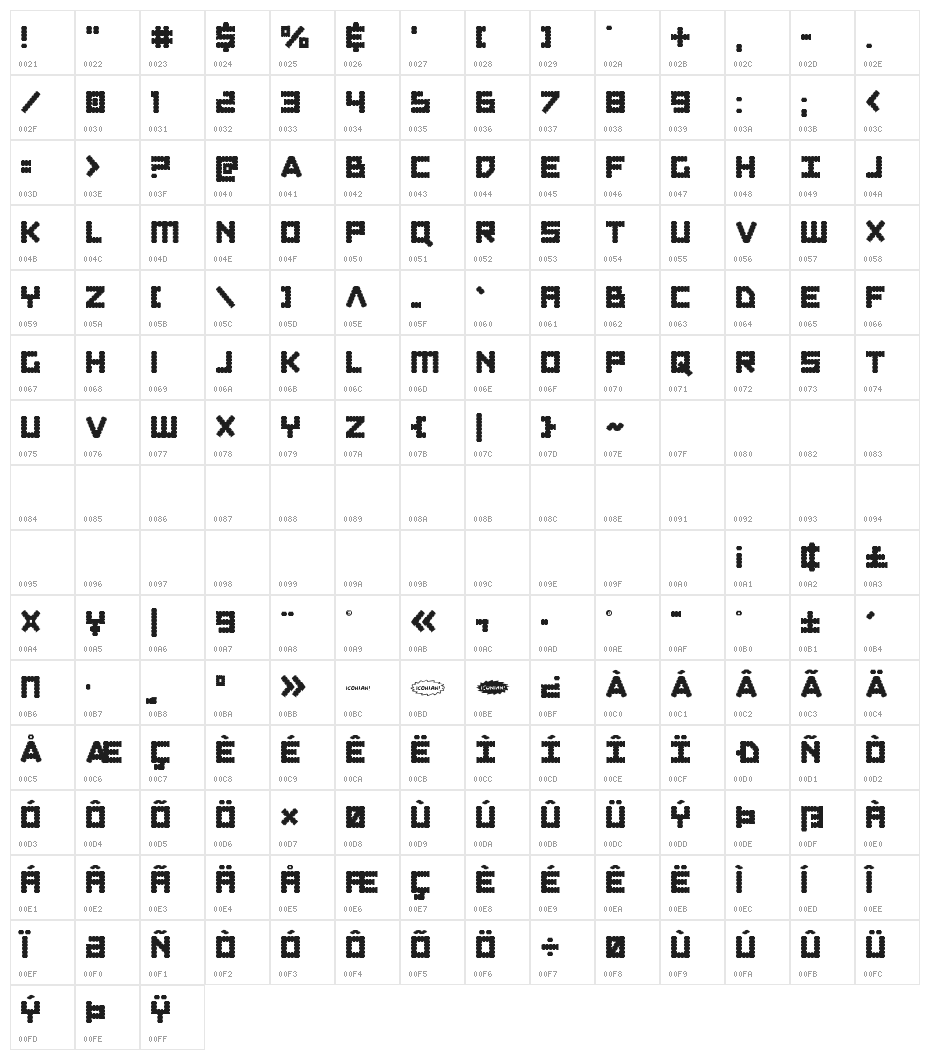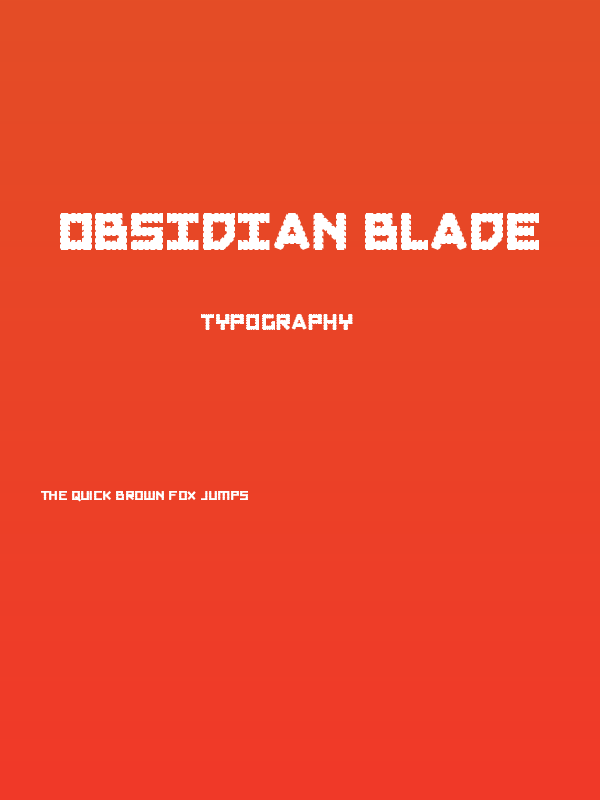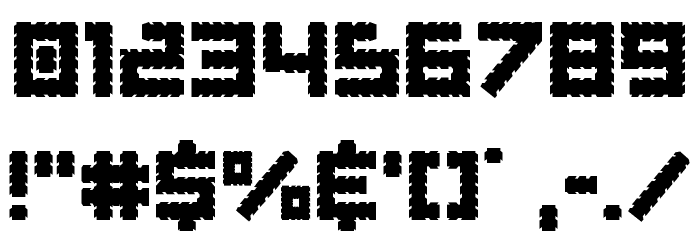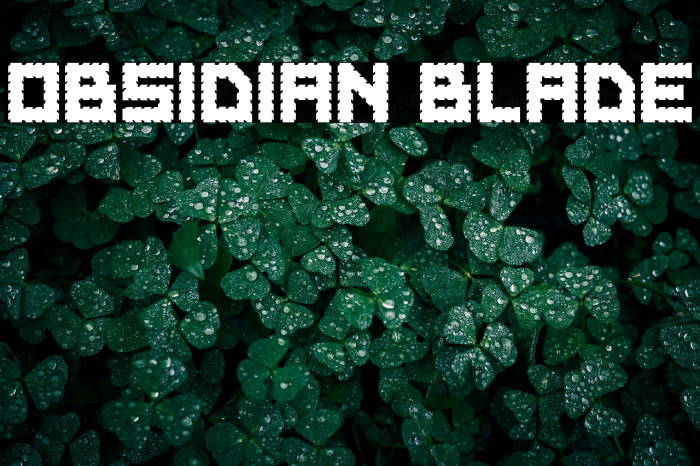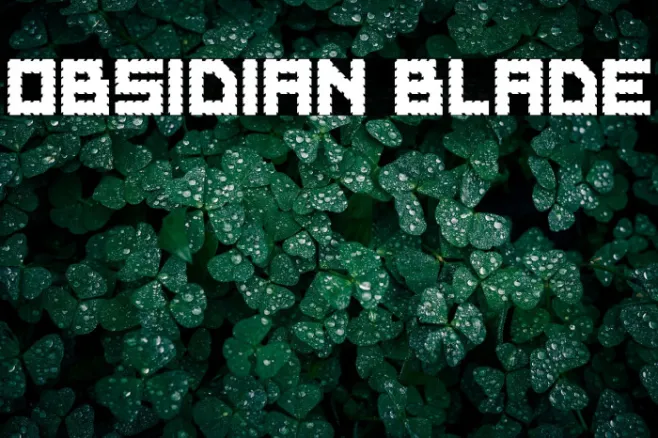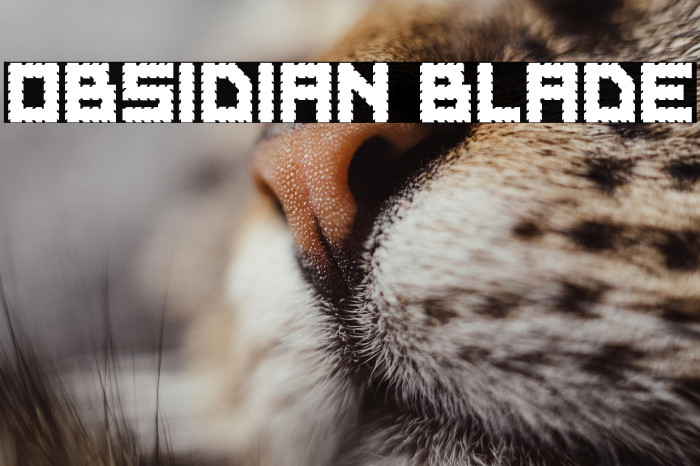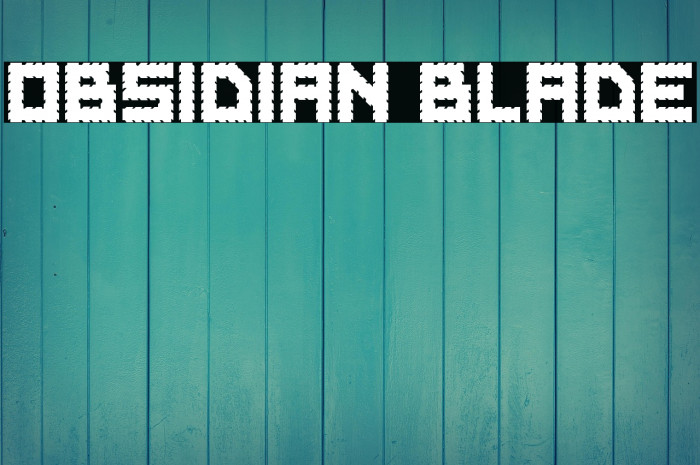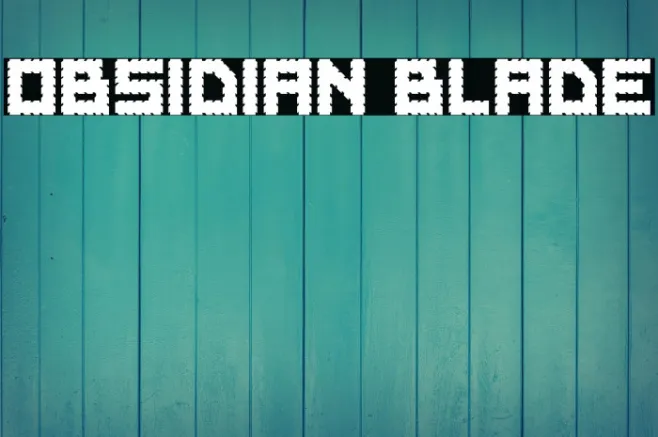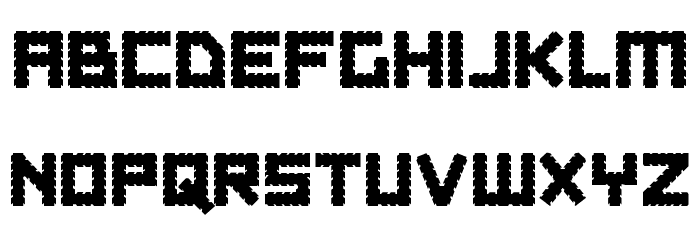
Obsidian Blade Font
Obsidian Blade Description
This font features a bold, jagged design with a distinct, edgy appearance. Each character is composed of sharp, angular shapes that create a rugged and aggressive look. The uppercase and lowercase letters maintain a consistent style, with the uppercase being slightly larger and more pronounced. The numbers and special characters follow the same design principles, ensuring a cohesive appearance across all glyphs. The font's unique style makes it stand out, offering a modern and unconventional aesthetic that is both striking and memorable.